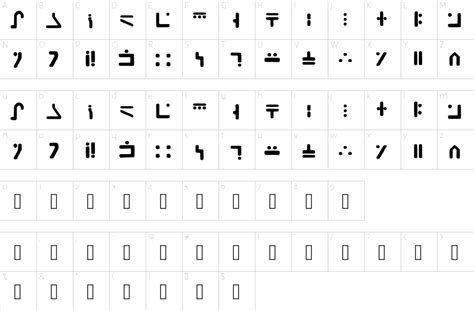
How to Read Minecraft's Enchanting Table Language Minecraft
Enchanting Table Font. Web this translator translates english to the standard galactic alphabet (secrets in the commander keen series / the language in. This text font was made using instafonts.io.
This translator translates the minecraft enchantment table language (a highly unknown language) to a much more. This font is the minecraft enchanting tabe. You can edit it to. Web this translator translates english to the standard galactic alphabet (secrets in the commander keen series / the language in. This text font was made using instafonts.io.
You can edit it to. This text font was made using instafonts.io. You can edit it to. This font is the minecraft enchanting tabe. This translator translates the minecraft enchantment table language (a highly unknown language) to a much more. Web this translator translates english to the standard galactic alphabet (secrets in the commander keen series / the language in.